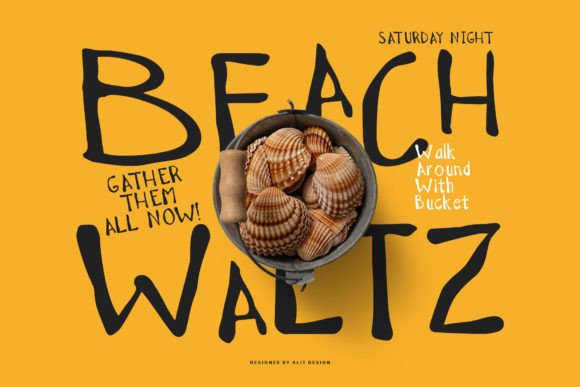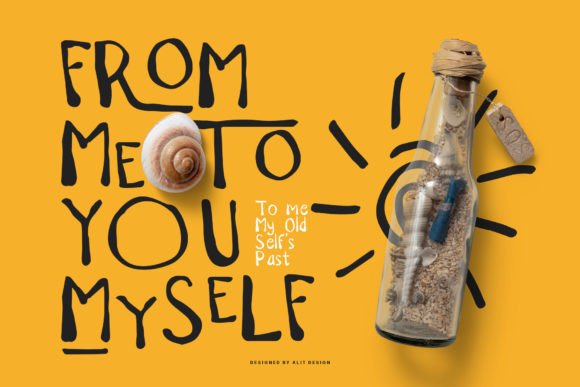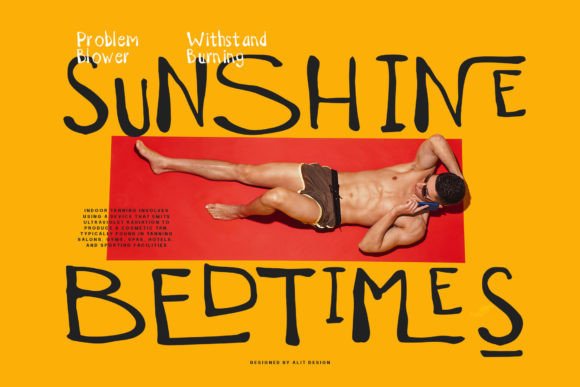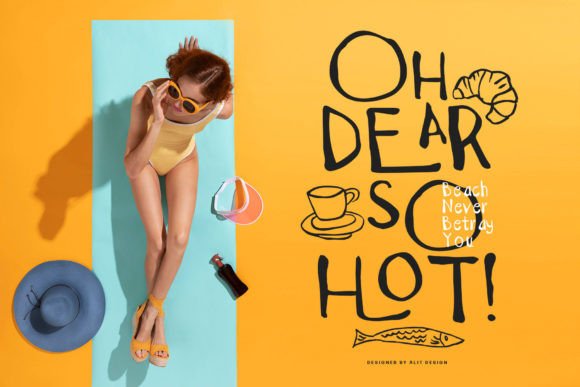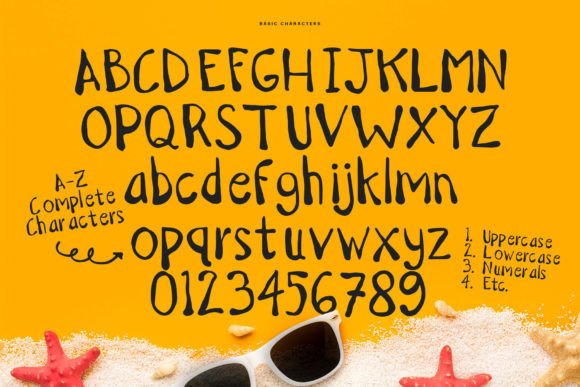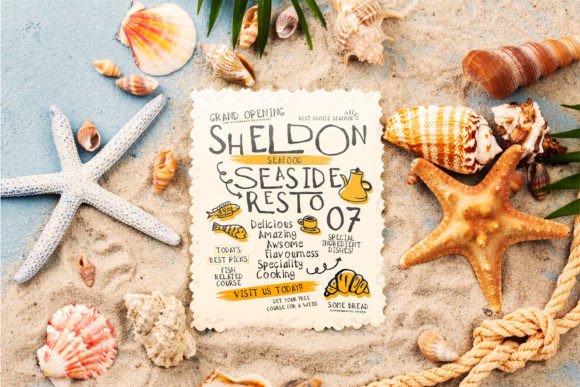
The Perfect Blend of Whimsy and Elegance
Have you ever stared at a blank page, waiting for inspiration to strike? You’re not alone. It’s in those moments of creative uncertainty that we often find ourselves yearning for a spark of originality. For designers, finding that perfect font can be the difference between a dull design and a showstopper. That’s where the Bikini Mango Font comes in – a delightful fusion of handwritten charm and sophisticated calligraphy.
This vibrant font is more than just a collection of characters; it’s a passport to a world of creative possibilities. With its extensive character set and delightful dingbat family, the Bikini Mango Font empowers designers to craft unique and eye-catching projects that stand out from the crowd. Whether you’re working on a wedding invitation, branding material, or social media post, this font is sure to infuse your work with a touch of warmth and personality.
Bikini Mango Font Key Features
- Font Size: The font comes in a single weight, making it ideal for use in logos, branding, and other design elements where a clean and simple look is desired.
- Unique Characteristics: The font features a unique blend of modern and tropical elements, making it perfect for designs that require a fun and exotic feel.
- Legibility: Bikini Mango Font is designed to be highly legible, even at small font sizes, ensuring that your message is conveyed clearly and effectively.
Bikini Mango Font Review
Overall, I think the Bikini Mango font has some great qualities that make it a solid choice for designers, especially those working on tropical-themed projects ✨. Here are some of its strengths:
- Fun and playful vibe: The Bikini Mango font is perfect for projects that need a lighthearted, carefree feel ✨.
- Good for body text: While it’s not the most legible font for large blocks of text, it works well for shorter paragraphs and headings ✨.
- Cool for quotes and titles: The font’s unique style makes it ideal for quotes, titles, and other text elements that need a bit of flair ✨.
However, there are a few limitations to keep in mind ⚠️:
- Not ideal for long text: As I mentioned earlier, the font can be a bit hard to read when used for large blocks of text ⚠️.
- Limited font sizes: The font may not scale well to very large or very small sizes, which can affect its overall legibility ⚠️.
Overall, I think the Bikini Mango font is a great addition to any designer’s toolkit. While it may have some limitations, its unique style and playful vibe make it a great choice for projects that need a bit of personality ✨.
The Bikini Mango Font is ideal for:
1. Fashion and beauty branding.
2. Food and beverage packaging.
3. Travel and hospitality branding.
Tips for Getting the Most Out of Bikini Mango Font
1. Use the font in combination with bright and pastel colors to create a fun and playful look.
2. Experiment with different font sizes and styles to add visual interest to your design.
3. Use the font in conjunction with bold and italic text to create a sense of hierarchy in your design.
Alternatives to Bikini Mango Font
Great Vibes is a beautiful, elegant script font that is perfect for creating a tropical and fun atmosphere. It is ideal for use in summer-themed projects, beach-themed designs, and travel-related materials. Great Vibes is similar to Bikini Mango Font in its playful and casual nature, but it has a more refined and sophisticated look.